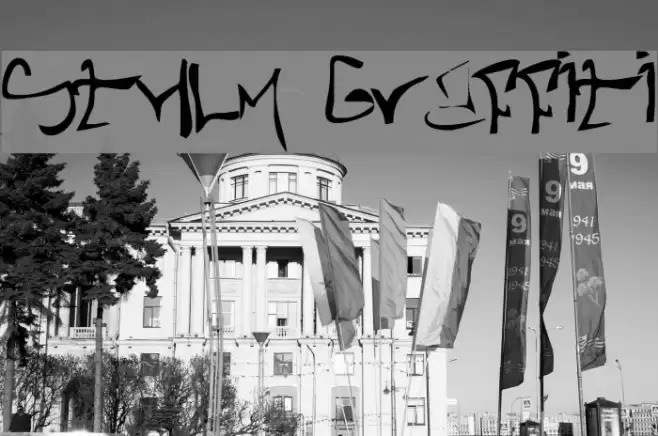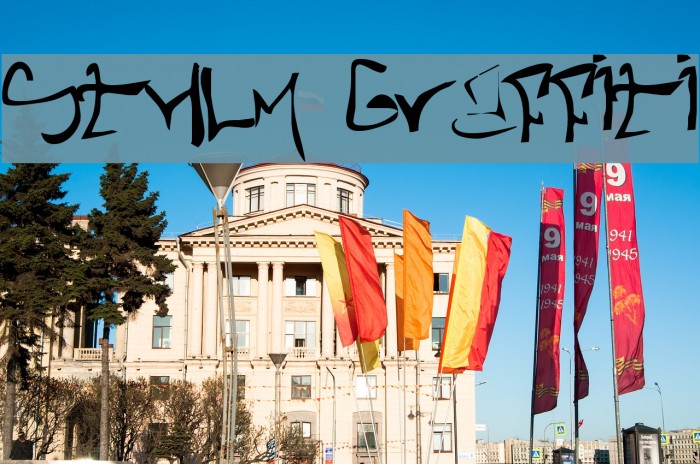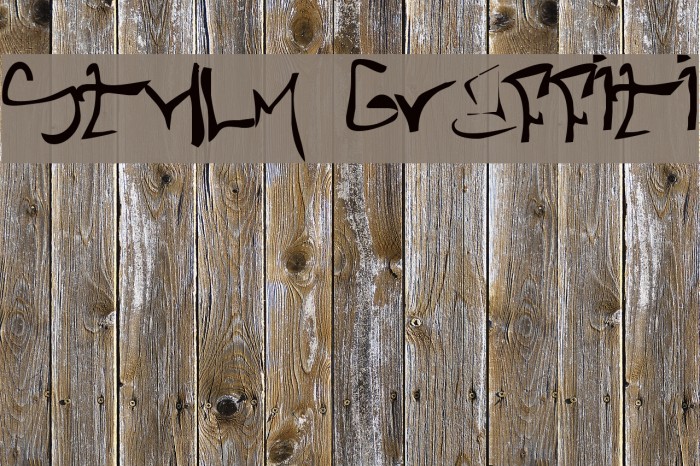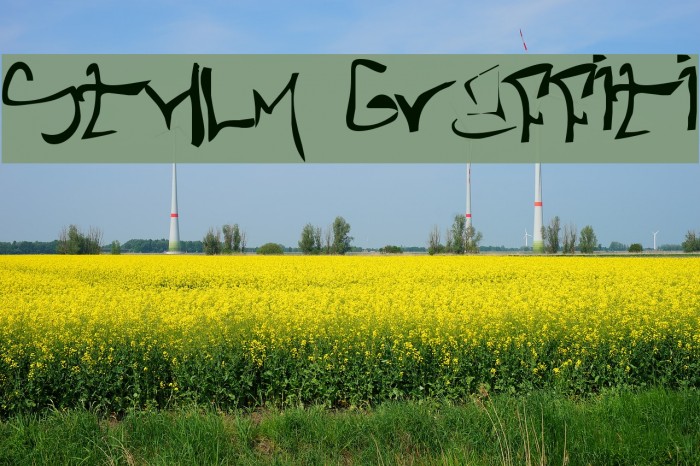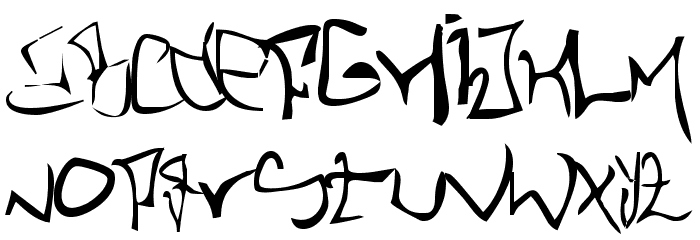
STHLM Graffiti Font
STHLM Graffiti Description
This font exudes an urban, edgy vibe reminiscent of street art and graffiti. The characters are bold and dynamic, with a fluid, freeform style that mimics the strokes of a spray can. Each letter is uniquely stylized, featuring sharp angles and curves that create a sense of movement and energy. The uppercase and lowercase letters maintain a consistent aesthetic, while the numbers and special characters integrate seamlessly into the overall design. This font captures the rebellious spirit of graffiti culture, making it ideal for projects that require a bold, artistic statement.
A bold, graffiti-inspired font with dynamic, freeform strokes from Quirky fonts.
- Proposed Projects: Perfect for street art projects, urban-themed designs, music album covers, and edgy branding.
- Overall Style: Urban, Edgy, Artistic
- Use Case: Logos, Posters, Album Covers, Street Art